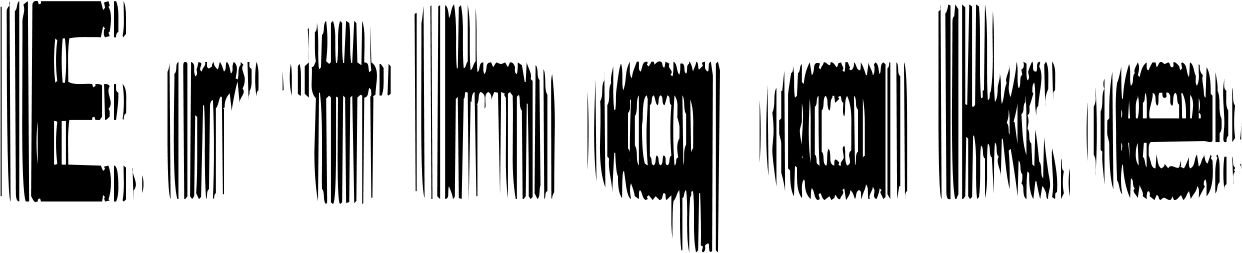
Erthqake Font
Every designer knows how important to choose the right font for text-based layouts. Now you should get your hands on Erthqake and make a striking design. The letters come with a glitch style in this distorted font. Apply it for video clips, party flyers, social media content, and so forth. Need more of this collection? Discover RB right now.